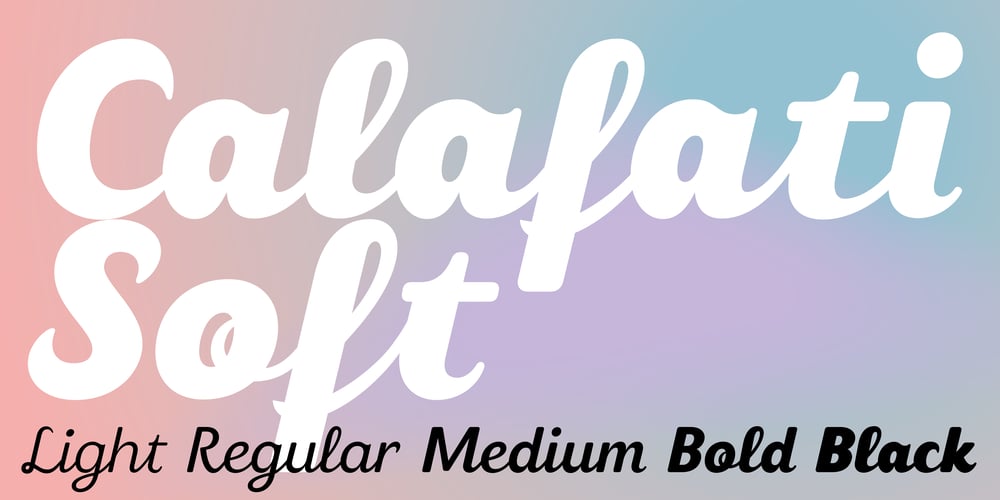
Calafati Soft
Calafati Soft font
Calafati Soft Font Family was designed by Ekke Wolf and published by Wannatype. Calafati Soft contains 5 styles and family package options. Basilio Calafati (1800–1878) worked as a magician under the name of Salamucci in the Wiener Prater. Later he obtained the license for a roundabout and other amusement facilities in the Wiener Prater.Calafati typeface family is characterised by little contrast and strong emphasis on the horizontals. It is a robust font that has many applications. Its character shapes are simple and relatively unembellished. With regard to metrics and proportions it combines perfectly with the Wien Pro and the Liebelei Pro.Calafati is available in weights light, regular, medium, bold and black.In 2022, Calafati received a major update.The recent family, Calafati Soft, is an 100% offspring of sharp-edged Original Calafati.